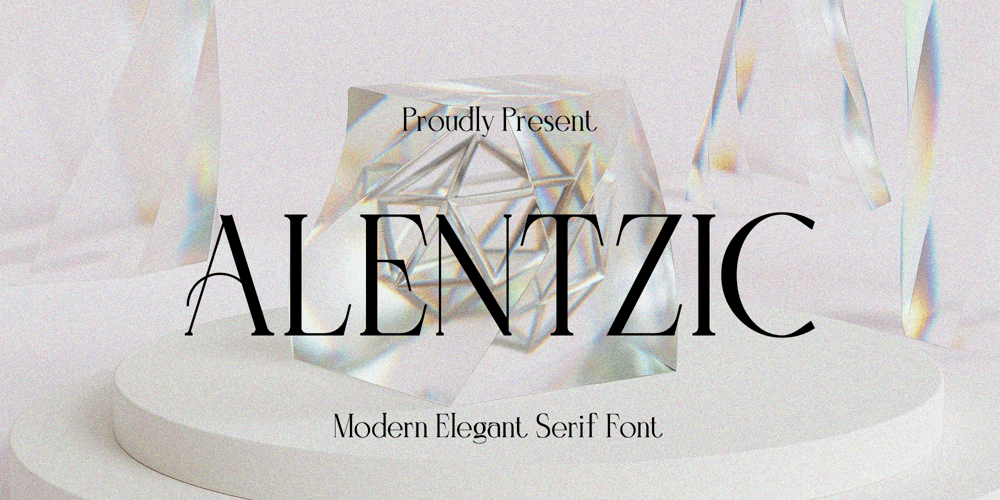
Alentzic
Alentzic font
Alentzic Font Family was designed by Mugi Raharjo and published by Nian Keun Studio. Alentzic contains 1 styles and family package options. Alentzic font is a collection of characters with a luxurious, modern concept and a variety of uniqueness that each letter has.This luxury concept was created to make it easier for you to create a good and simple design so that you can incorporate it into your works.You can use the Alentzic Font in media such as logos, magazine covers, perfumes, skin care to hospitality. You can enjoy a wide variety of ligatures and alternatives on this Alentzic.Thank you for coming to my shop and enjoying other fonts.